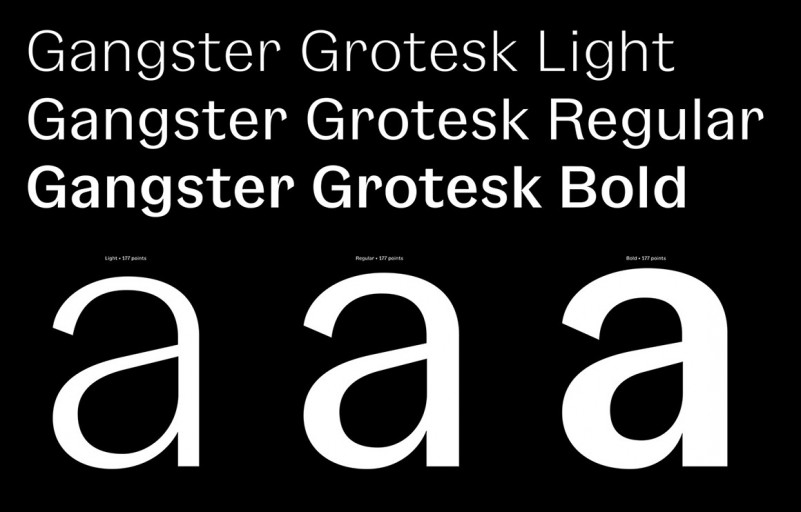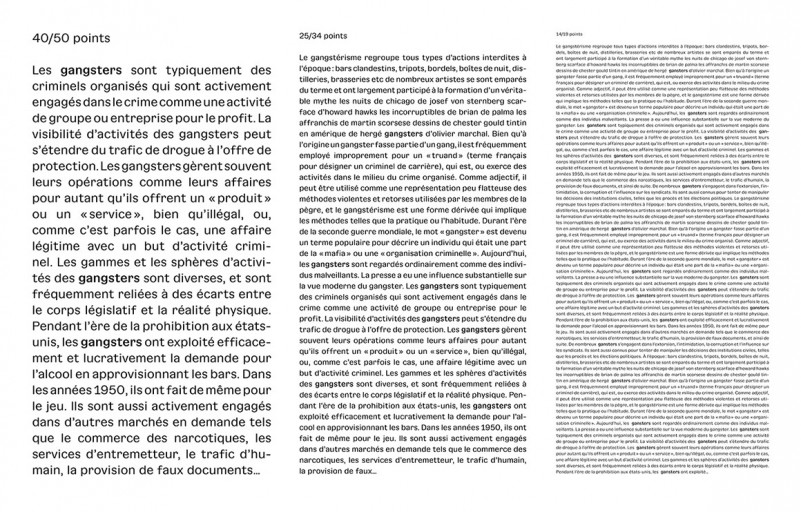
Gangster Grotesk Font Family
Start a new day with a sans-serif family. This is a unique and modern sans typeface, Inspired by the Bauhaus movement, it’s was designed for headlines or texts, displaying simple and effective glyph design. Introducing Gangster Grotesk Sans Family. It’s designed and shared by Fresh Fonts. A typeface that celebrates the beauty of contrast in typography and in people . Because everyone has a lil gangster in them. Nodding to its historical roots in the 1920s, It’s a contemporary typeface that combines a sharp contrast with angled terminal strokes that curve inward ever so slightly. These elements are simple but effective, lending the typeface character while being practically invisible at small sizes.